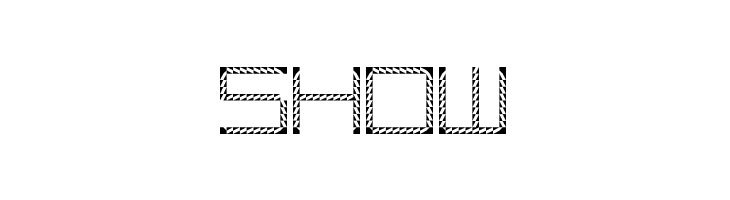
Zombie Brains-DEMO FONT Font
- Font: Zombie Brains-DEMO FONT
( Fonts by Espen Morten Kvalheim - www.unbornchikken.com )
A modern, geometric font with parallel line motifs and consistent stroke width.